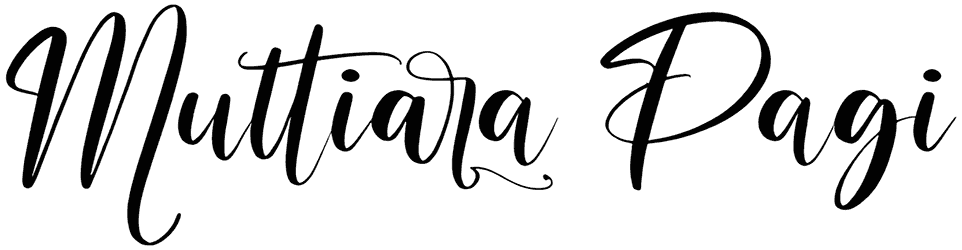
Muttiara Pagi Font
The appearance of a handwritten word may be achieved by using the natural and appealing Muttiara Pagi font. Using this calligraphy font‘s two styles to create artwork for posters, greeting cards, or even t-shirt painting can lead to beautiful results.